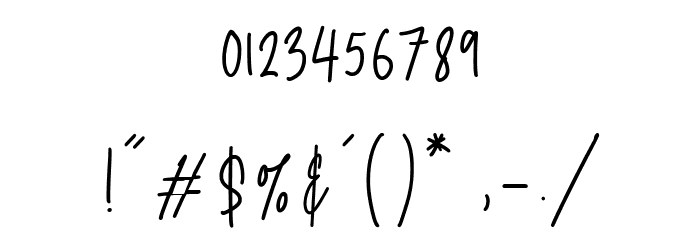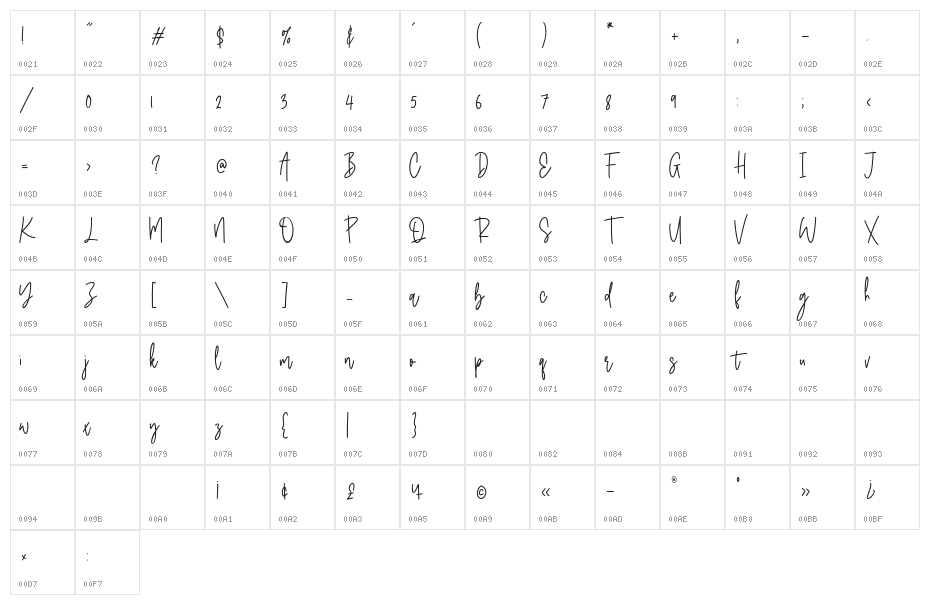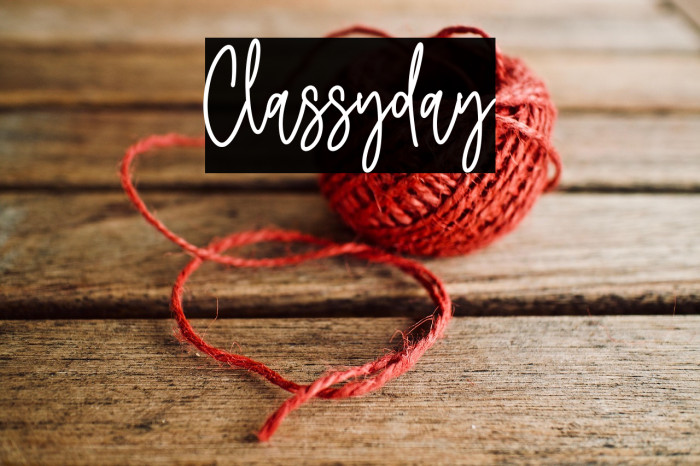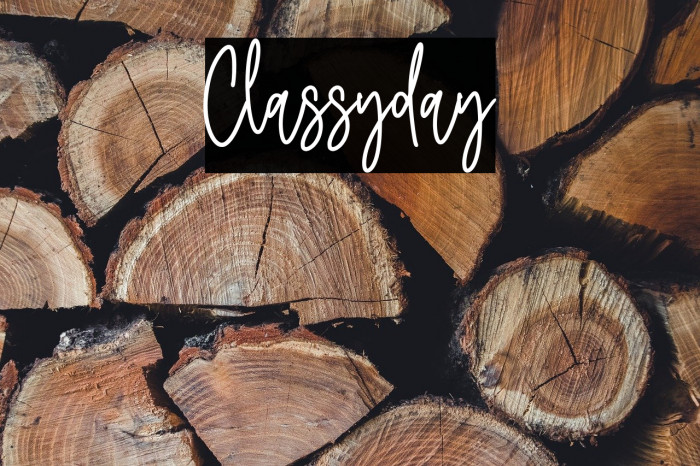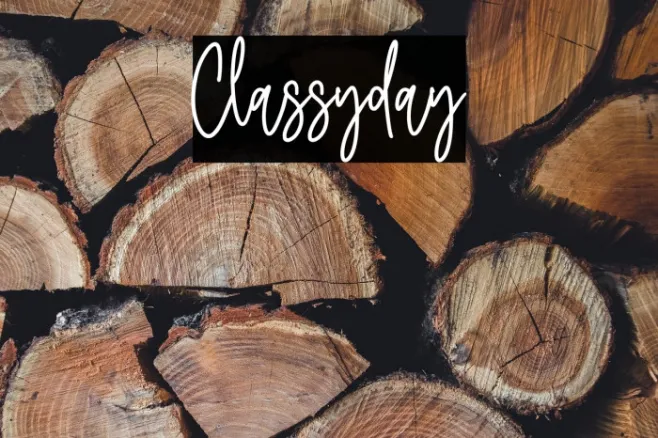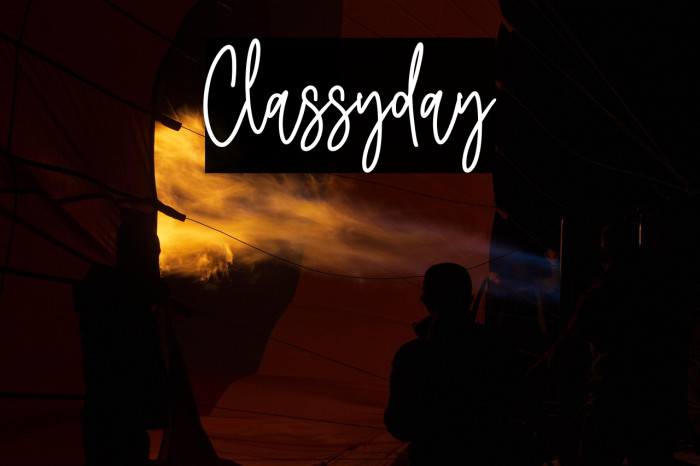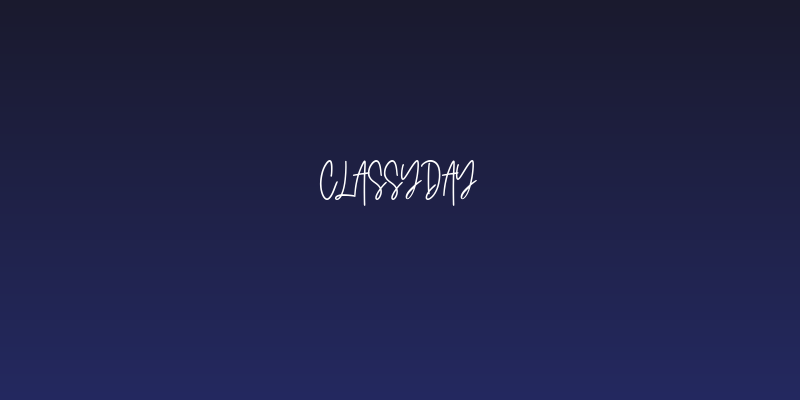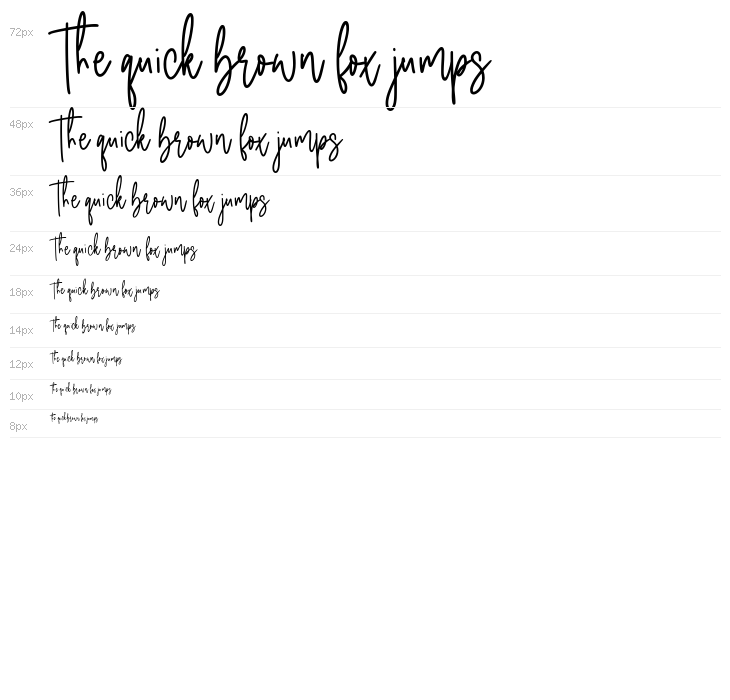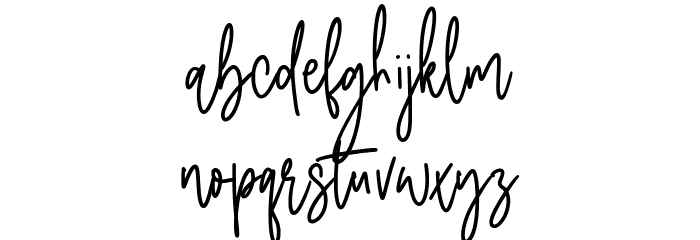
Classyday Font
Classyday Description
This font features a lively and playful handwritten style, characterized by its fluid and dynamic strokes. The uppercase letters are tall and slightly narrow, with a casual flair that adds a personal touch. The lowercase letters maintain a consistent flow, enhancing the overall cohesiveness of the design. Numbers and special characters are crafted with the same whimsical quality, making them blend seamlessly with the alphabet. The font's informal yet elegant appearance makes it suitable for projects that require a touch of personality and creativity.
| Proposed Projects | Ideal for greeting cards, invitations, personal branding, and creative projects that require a personal touch. |